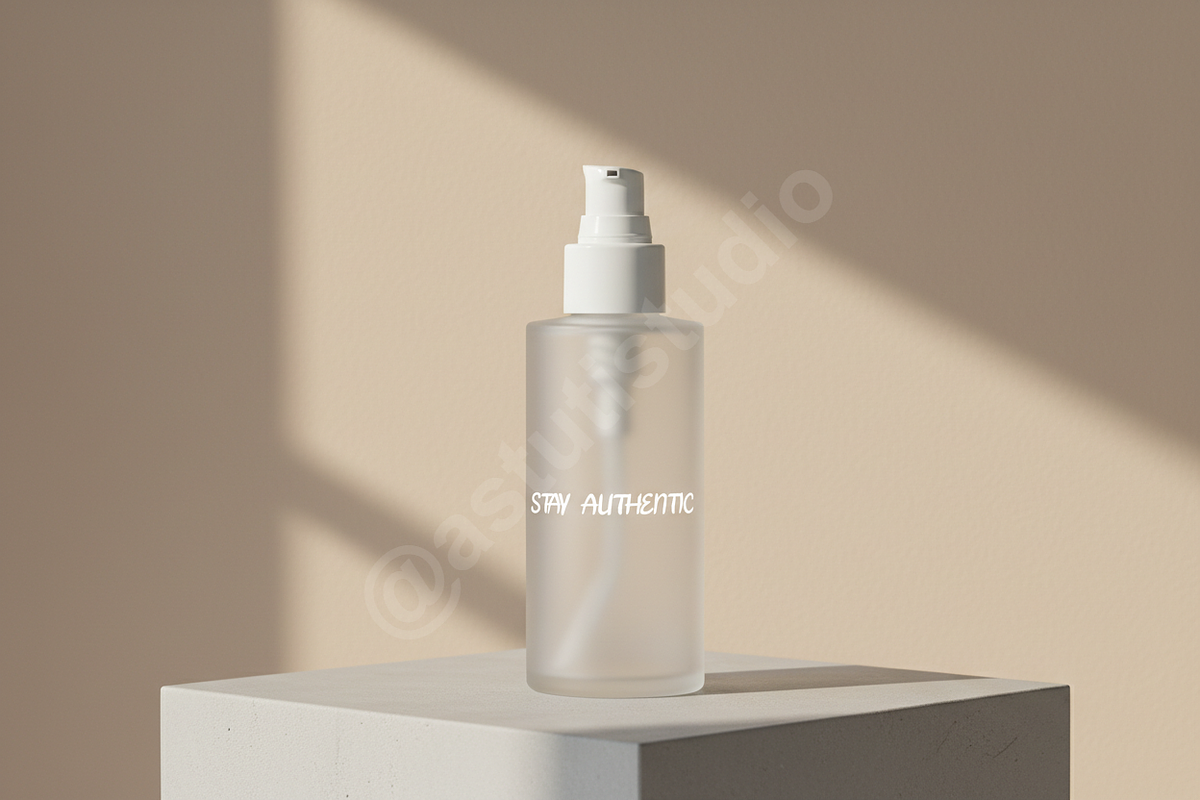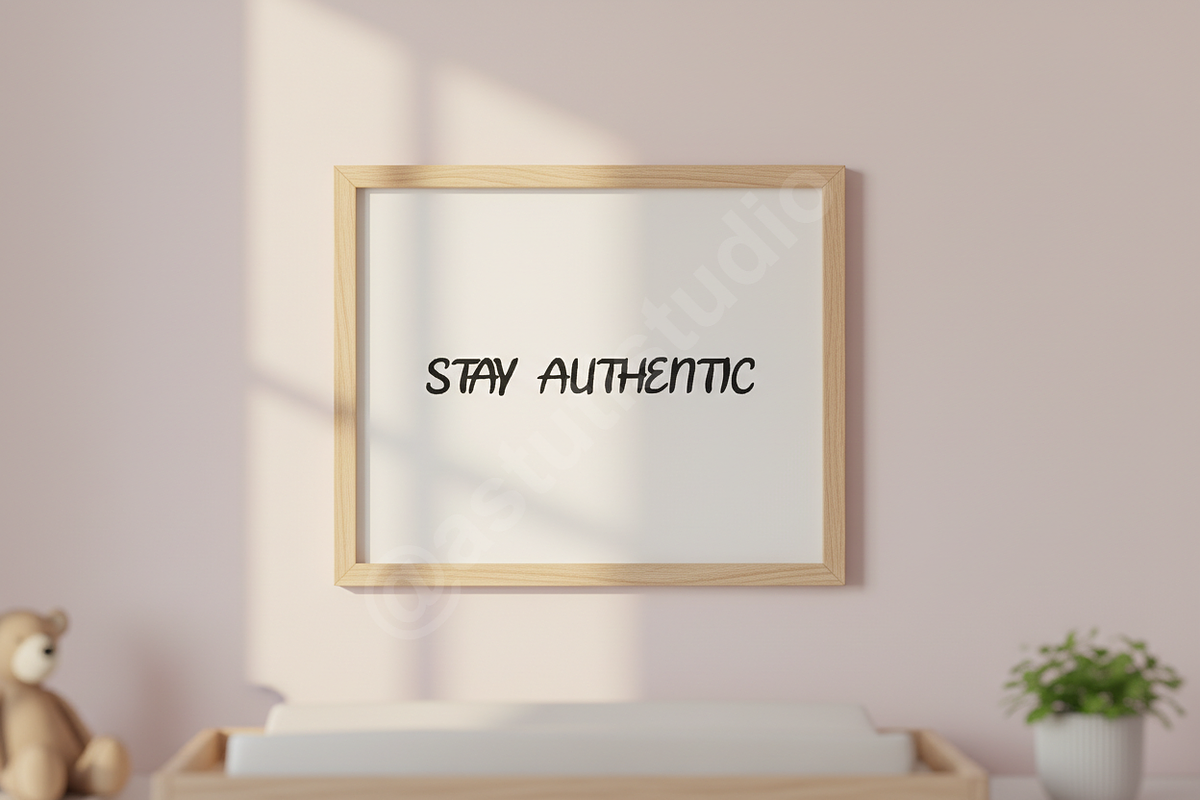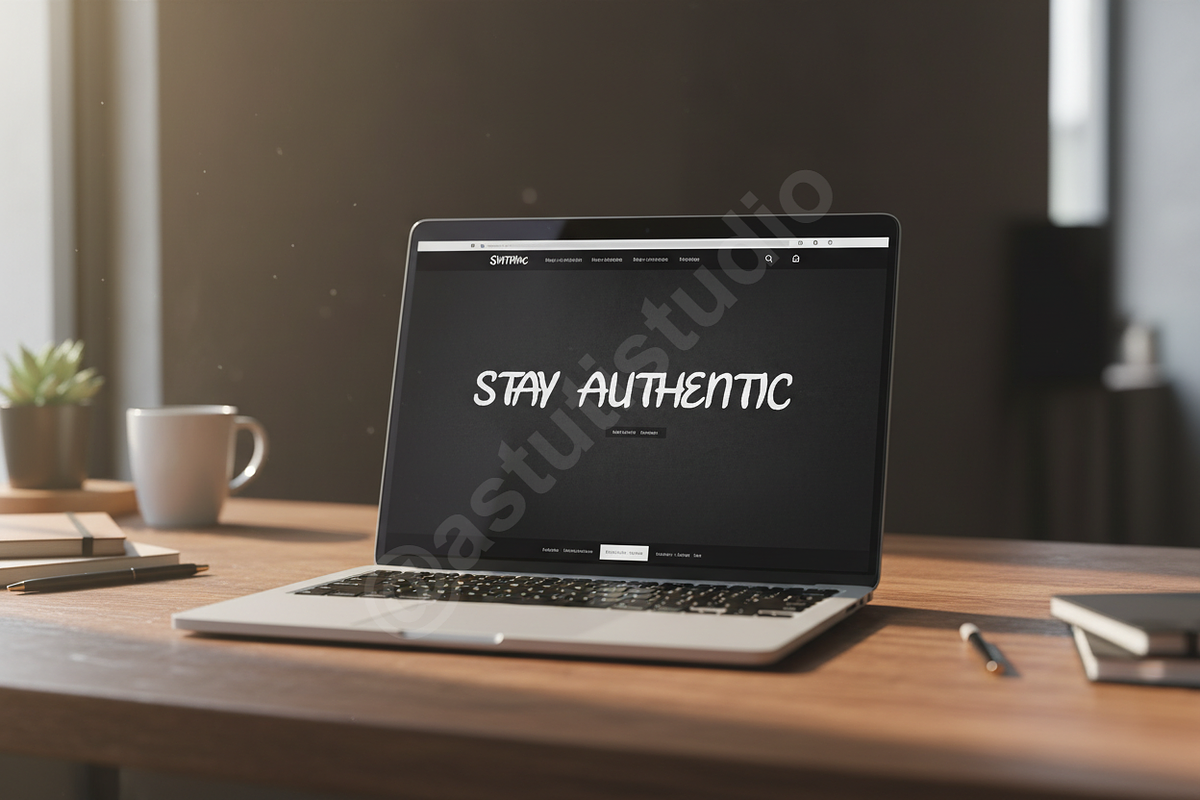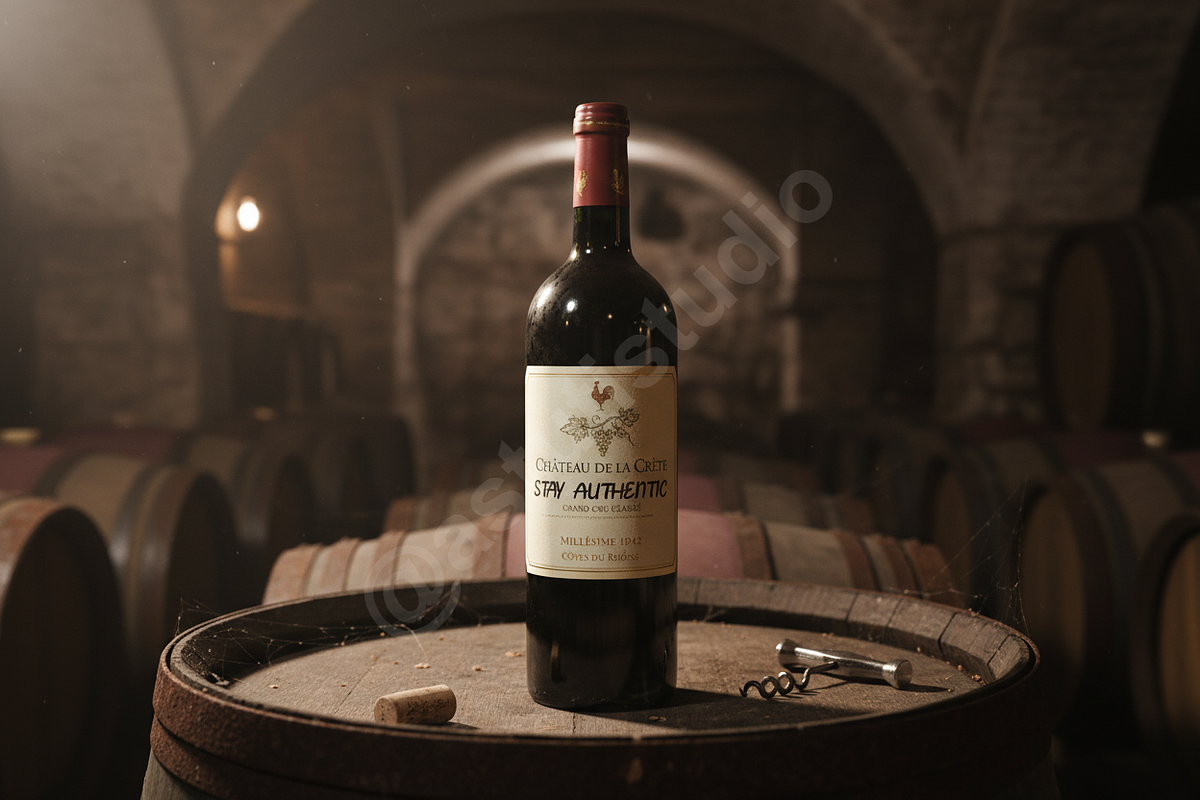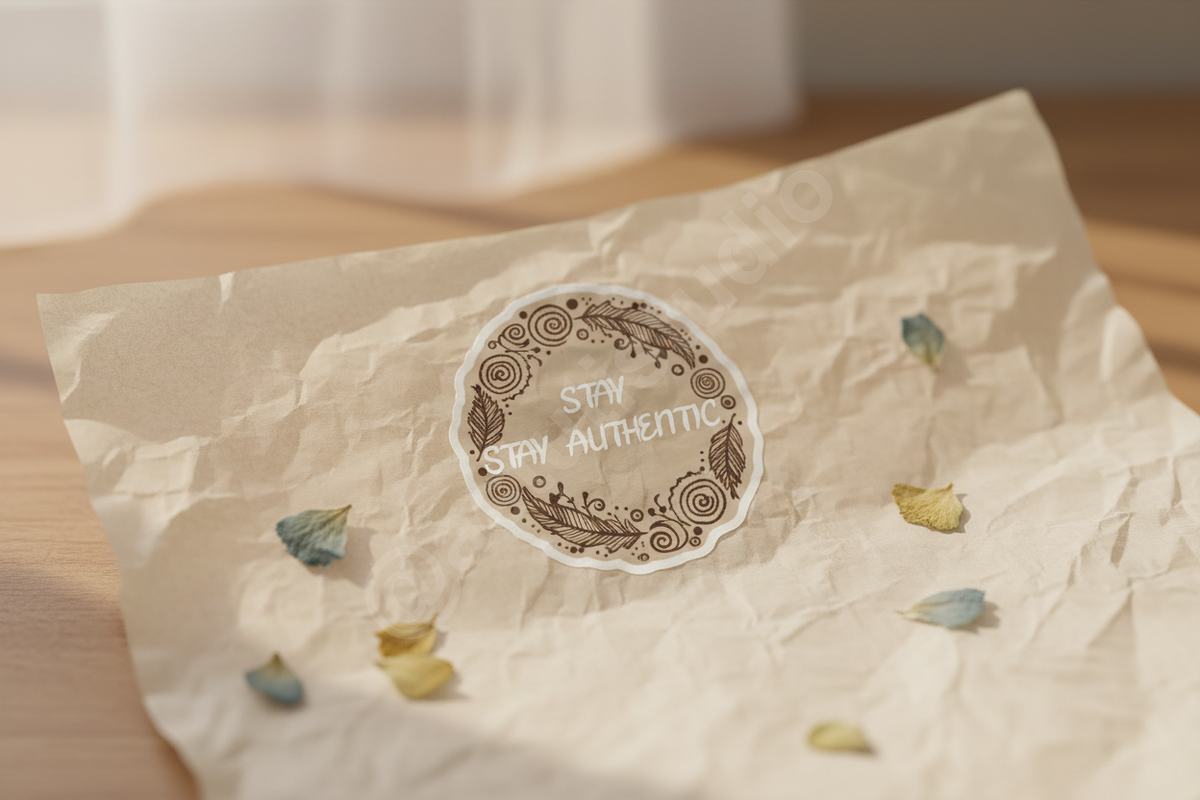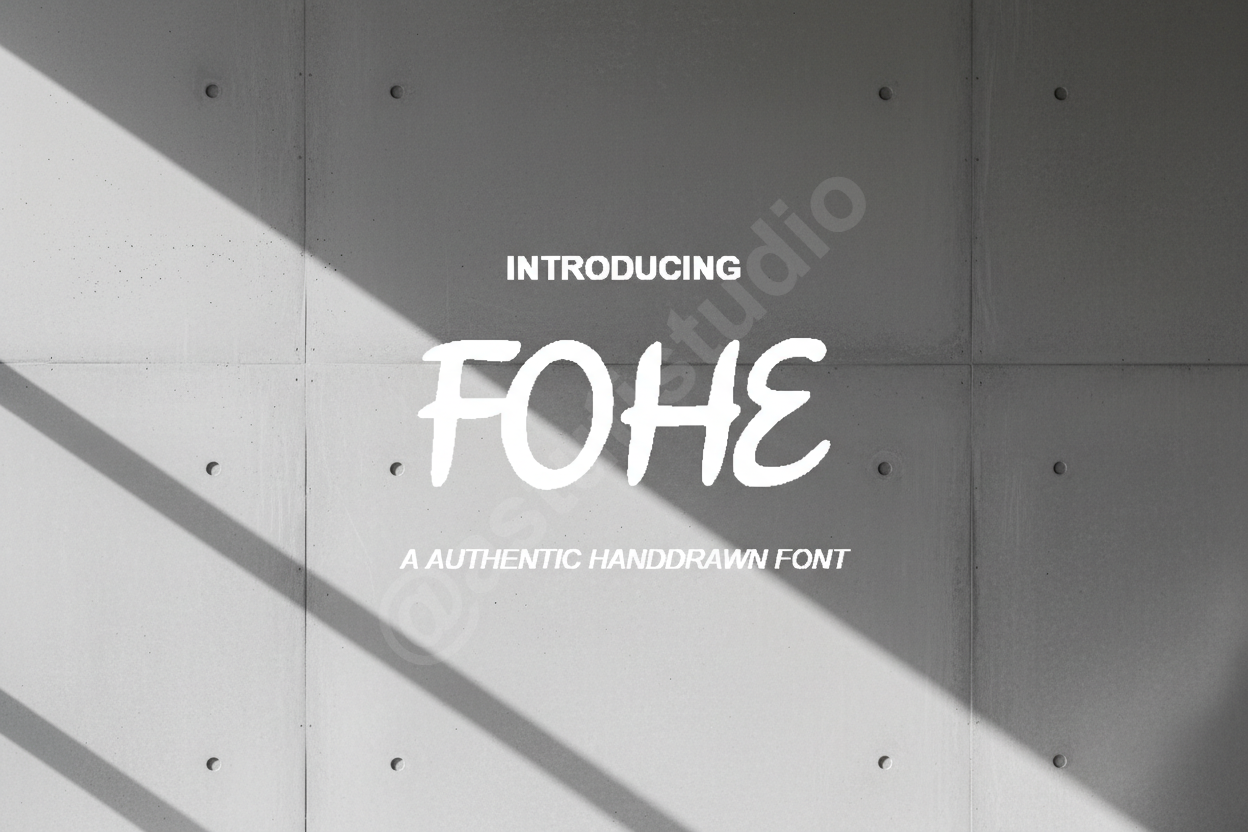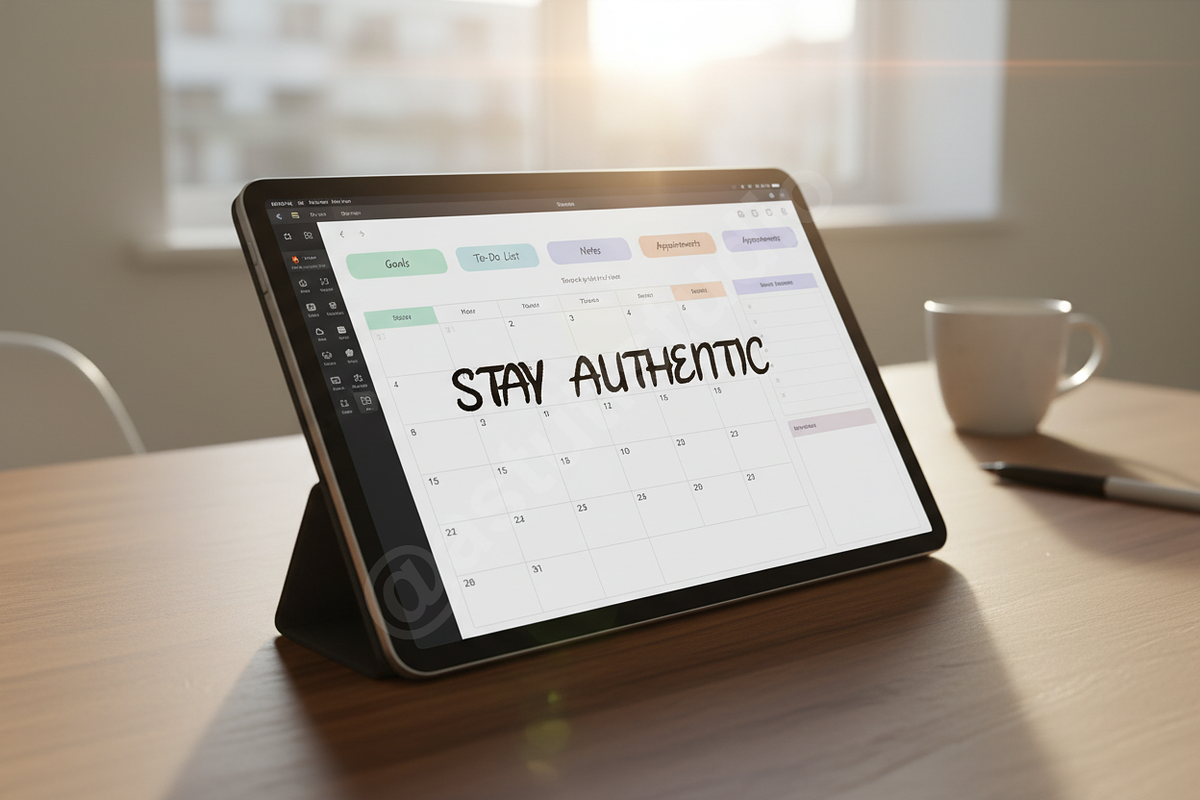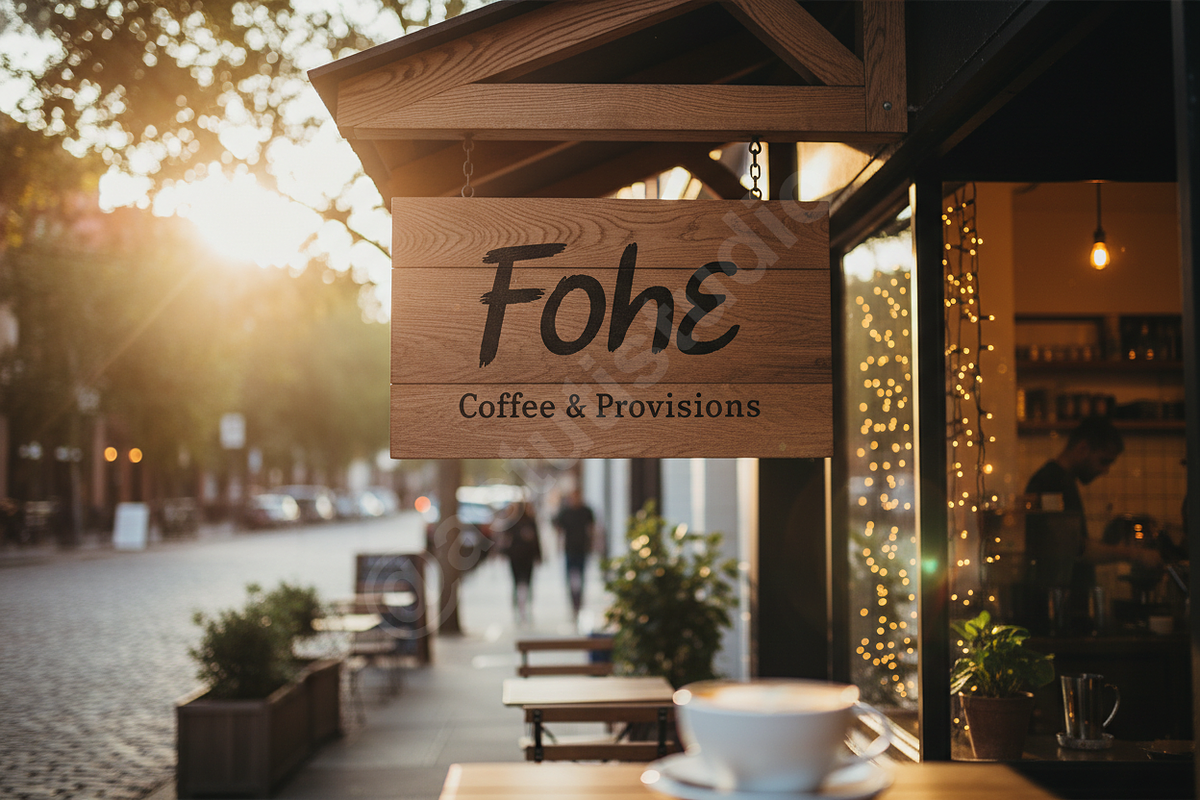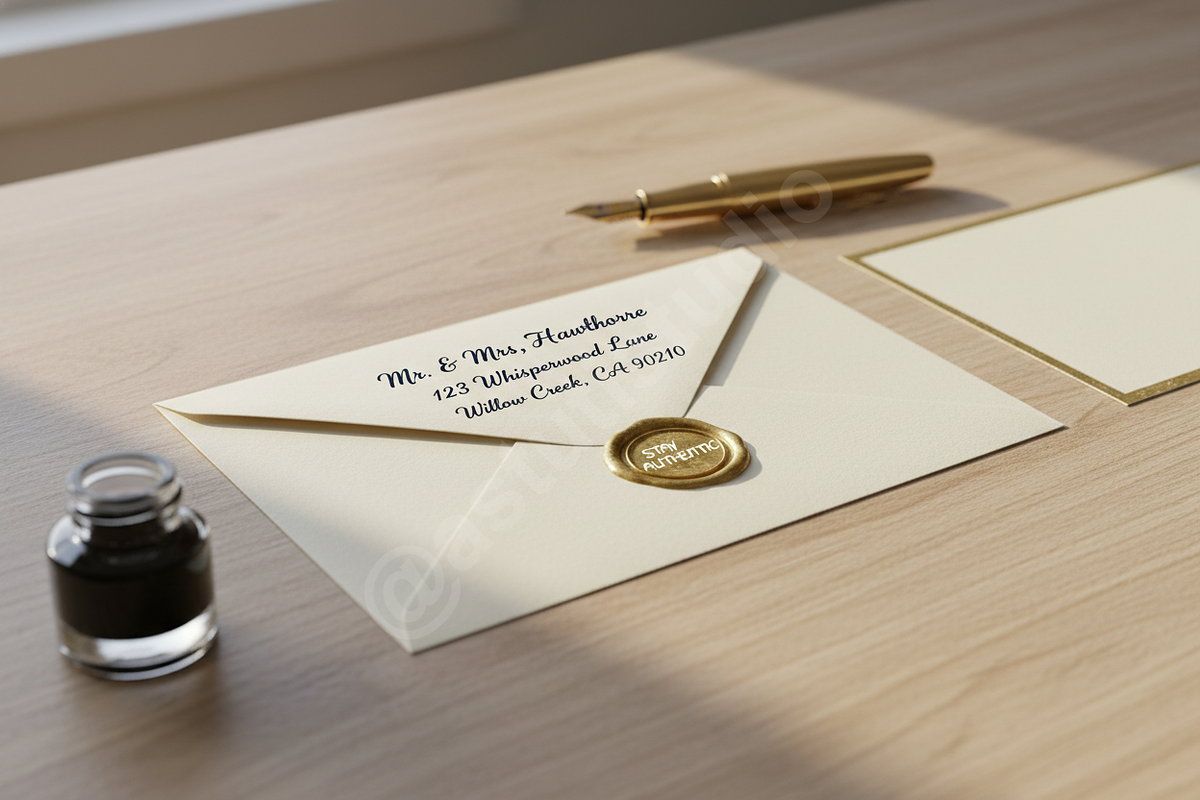
Fohe - Elegant Serif Font
Introducing Fohe, a sophisticated serif typeface meticulously crafted to exude timeless elegance and modern luxury. Designed for premium studios and discerning brands, Fohe elevates any project with its refined aesthetic and impeccable readability. It is the perfect choice for luxury branding, high-end editorial layouts, impactful social media campaigns, and any design requiring a touch of refined sophistication.
### Features:
- Timeless Elegance: Fohe boasts graceful curves, sharp serifs, and a balanced x-height, creating a harmonious and distinguished appearance.
- Exceptional Readability: Despite its elegant design, Fohe maintains excellent legibility across various sizes and mediums, ensuring your message is always clear.
- Versatile Application: Ideal for logotypes, headlines, magazine layouts, book covers, wedding invitations, fashion branding, product packaging, and more.
- Multilingual Support: Extensive character set covering multiple languages to broaden your creative reach.
- OpenType Features: Includes a comprehensive set of ligatures and alternate characters to provide unique typographic flair and customizability.
- Full uppercase and lowercase character set
- Numbers, punctuation, and symbols
- Multilingual characters
- Standard ligatures and alternates